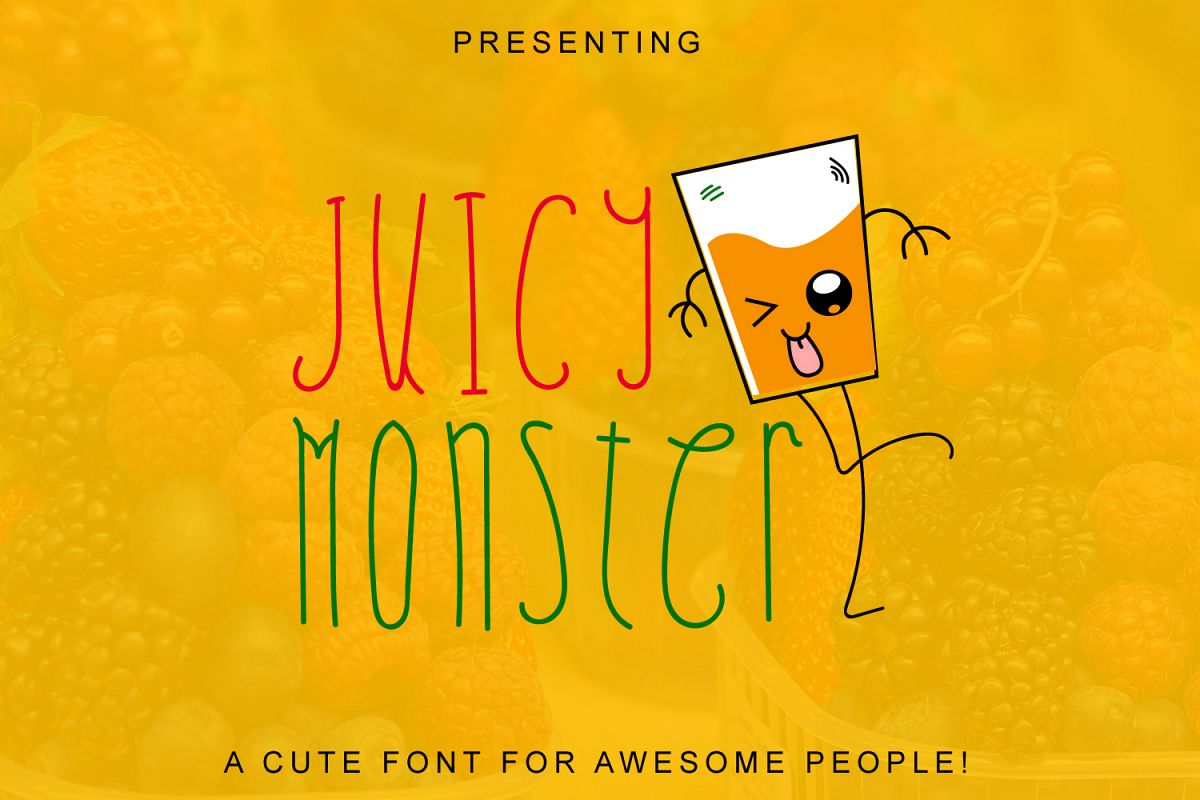
Juicy Monster - A Fun Cute Font
Presenting cute hand made font for you, With Numbers and Alphabets. Create tons of amazing designs ranging from kids book artwork, quotes or presenting something special in text, This font is just what you need.